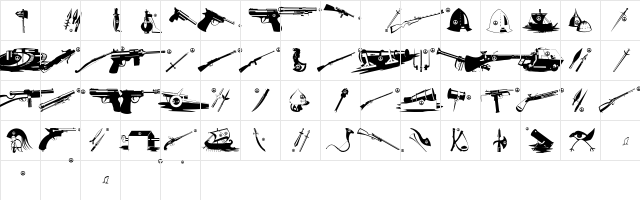
PeaceWeapons Regular
Design Context for PeaceWeapons Typeface
PeaceWeapons is a composed and adaptable typeface that performs quietly and consistently across a wide range of design contexts.